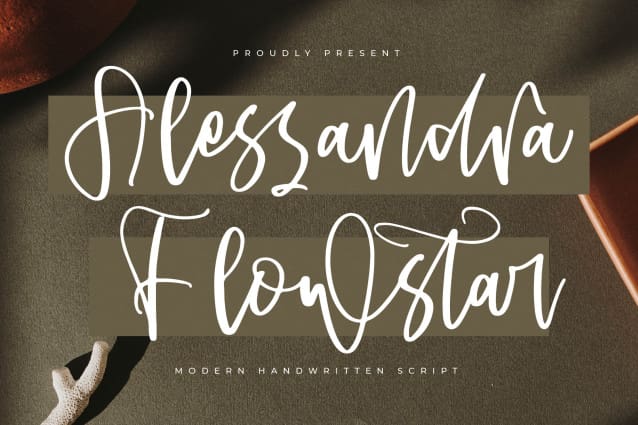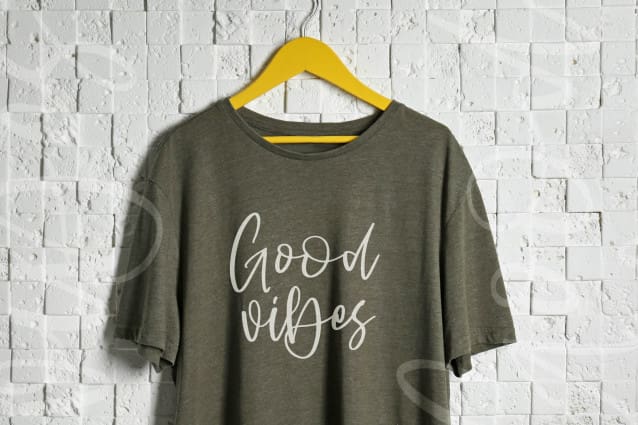
Alessandra Flowstar Font
Alessandra Flowstar Font – Modern Handwritten Script , from Letterena, is a Luxury Script font, suitable for any projects such as: logos, branding projects, homeware designs, product packaging, mugs, quotes, posters, shopping bags, t-shirts, book covers, name card, invitation cards, greeting cards, label, photography, watermark, special events, and all your other luxury and beautiful projects that need a Luxury Script taste.